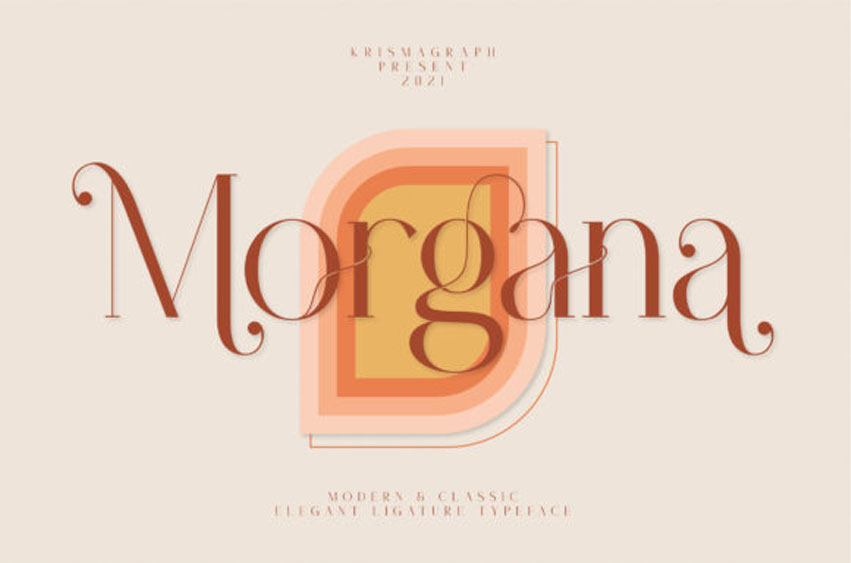
Morgana Typeface Font
Morgana Typeface Font is a unique, modern & classic serif font that is a mix of old and new. Its soft curves mixed with high contrast glyphs lend themselves to both feminine and masculine qualities.
Equipped with epic ligatures, this font is great in layout design for quotes or body copy. It is also great for logo designs.